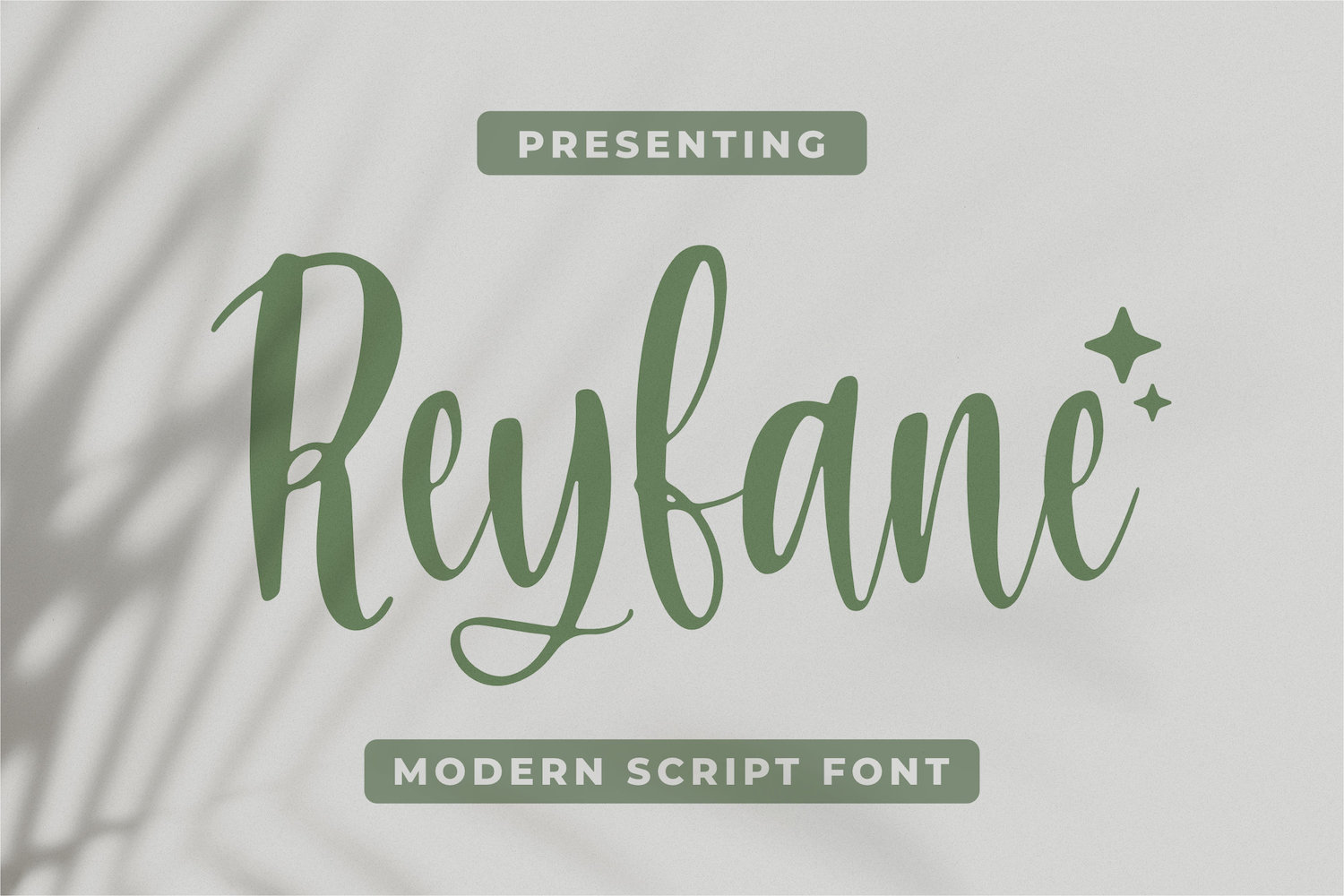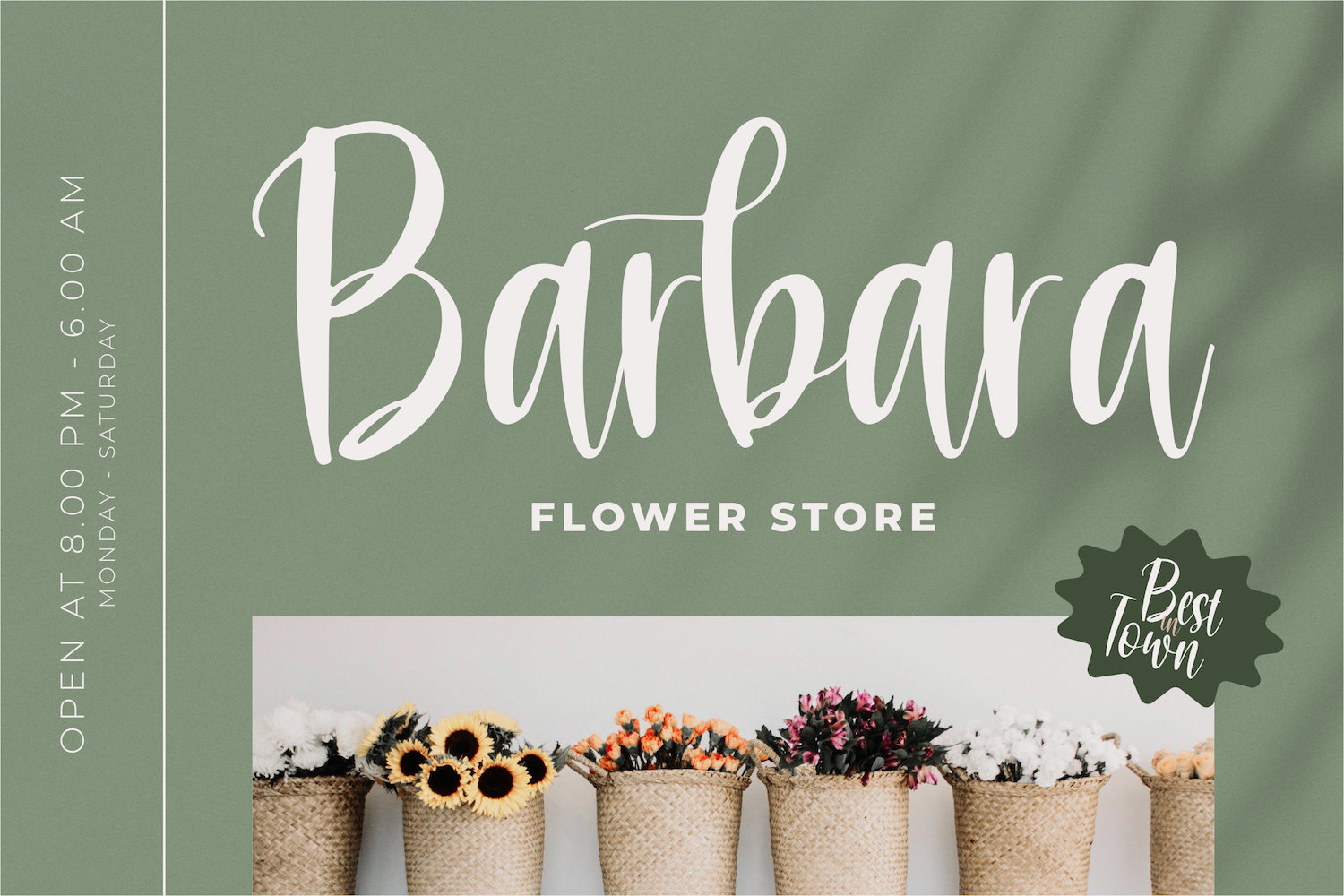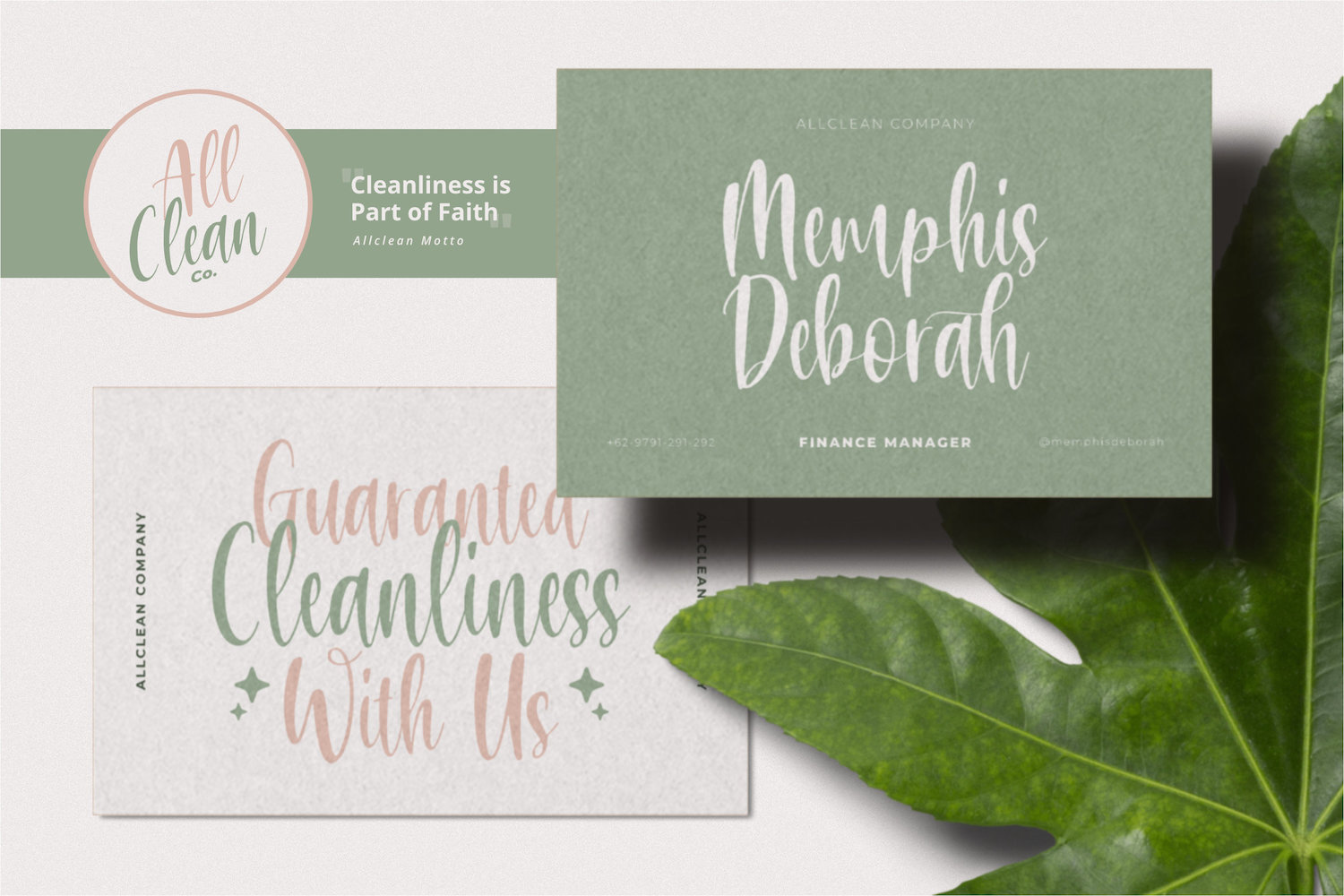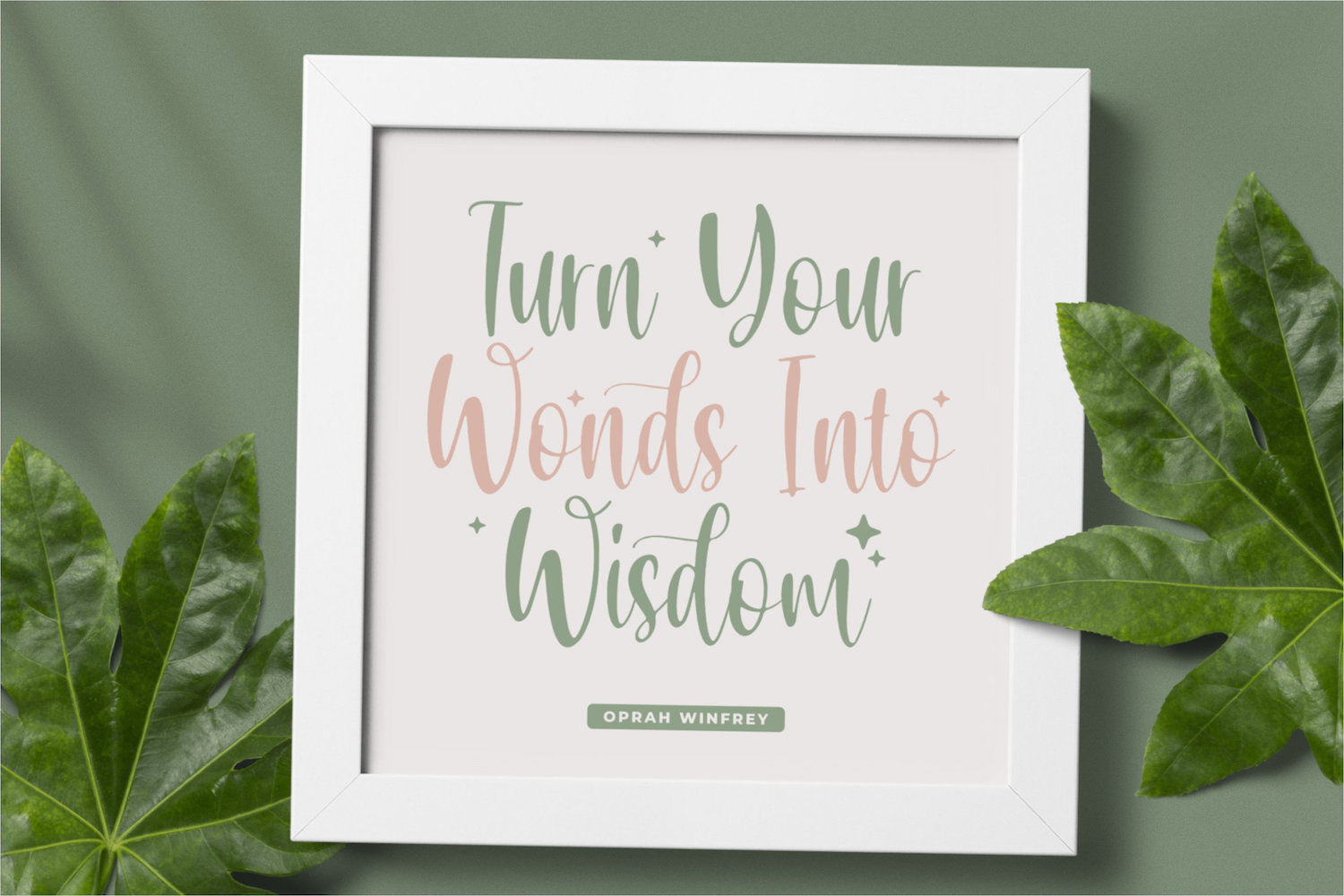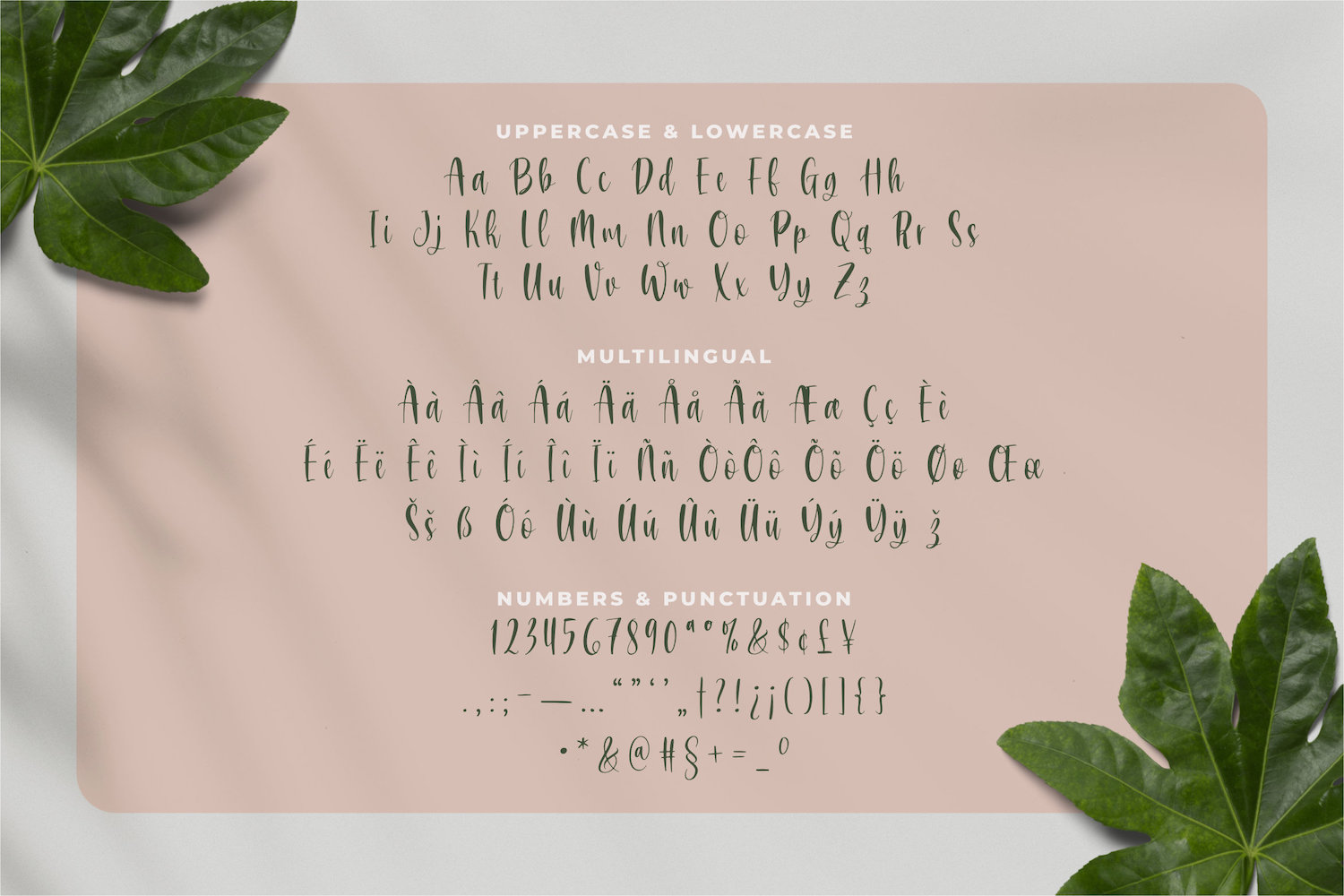
Reyfane is a charming modern script font that brings a soft, natural elegance to your design projects. With its fluid strokes and clean ligatures, Reyfane captures the beauty of handwritten calligraphy while offering excellent legibility. It’s perfect for branding, business cards, wedding stationery, and inspirational quotes.
This font supports multilingual characters, stylish alternates, and complete punctuation, making it versatile and functional. Reyfane works beautifully across various aesthetics, from wellness and floral shops to modern eco-themed branding. Let Reyfane add a sophisticated personal touch to your visual storytelling.